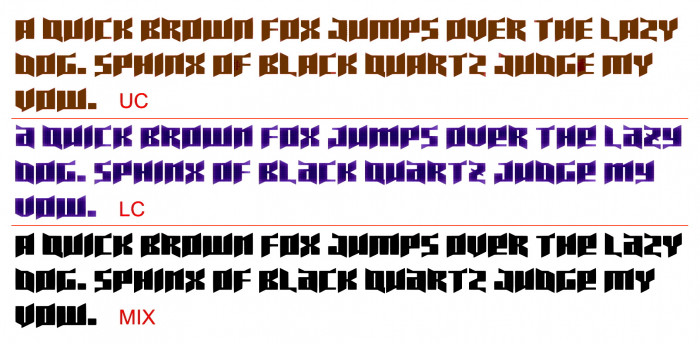
Unicase font with alternates (try them, please).
I love these compact letters with their triangular terminals breaking the baseline and X-height. It gives the text a steady rhythm.
I also like the idea very much. To me, the triangular elements have a sympathetic effect. You would think small doors or windows that open and invite you to enter.
Nice, the details have the max effect with min complexity, and makes me feel like it would fit right into a Commodore 64 Tech Demo.